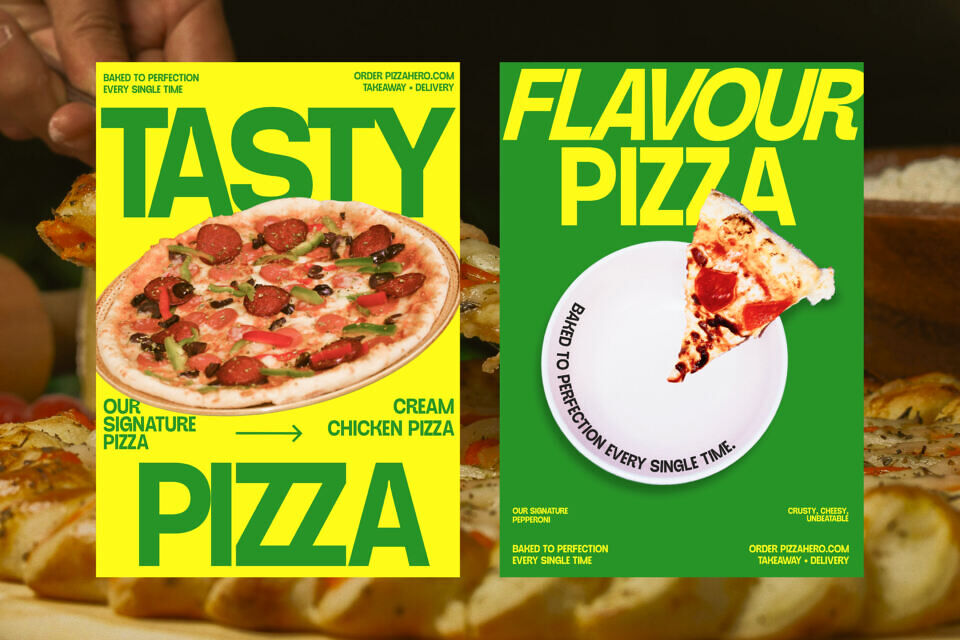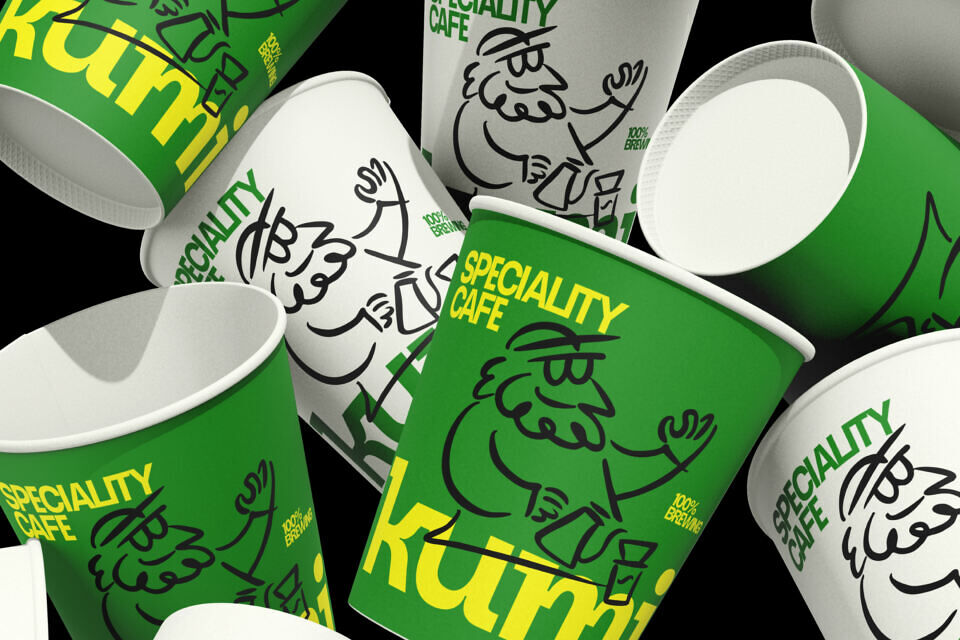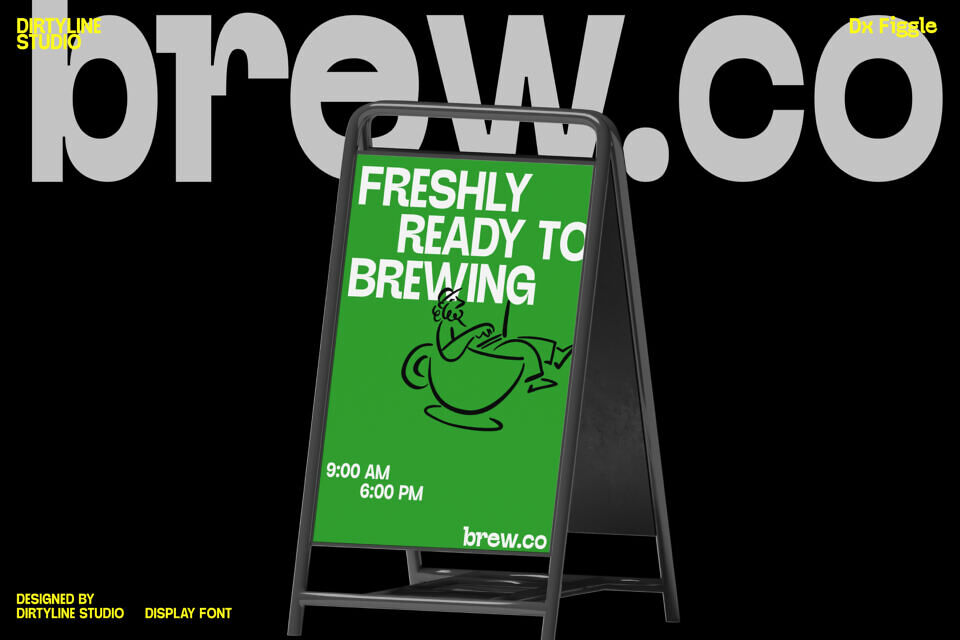
Dx Figgle Font
Dx Figgle is a bold and fun display font designed to bring character and confidence to your visuals. With its chunky structure, rounded forms, and playful alternates—Dx Figgle strikes the perfect balance between retro charm and modern freshness. Now available in both Regular and Italic (Paid version), it offers flexibility for standout headlines and expressive branding.
Whether you’re crafting a brand identity, eye-catching poster, dynamic movie title, or vibrant editorial header, Dx Figgle gives your project an unmistakable personality. The font thrives in high-energy contexts like food & beverage, streetwear, pop culture, and youth-oriented campaigns.